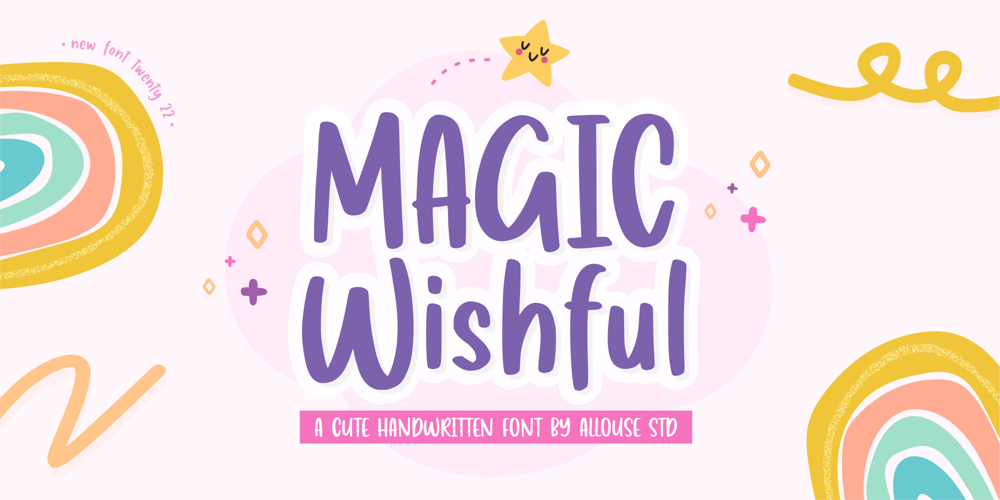
Magic Wishful
Magic Wishful font
Magic Wishful Font Family was designed by Fachrizal Yusuf and published by Allouse Studio. Magic Wishful contains 1 styles and family package options. Proudly Presenting, Magic Wishful A Cute Handwritten Font.Magic Wishful is perfect for any titles, logo, product packaging, branding project, megazine, social media, wedding, or just used to express words above the background.Magic Wishful also come with Multi-Lingual Support.Enjoy the font, feel free to comment or feedback, send me PM or email. Thank You!